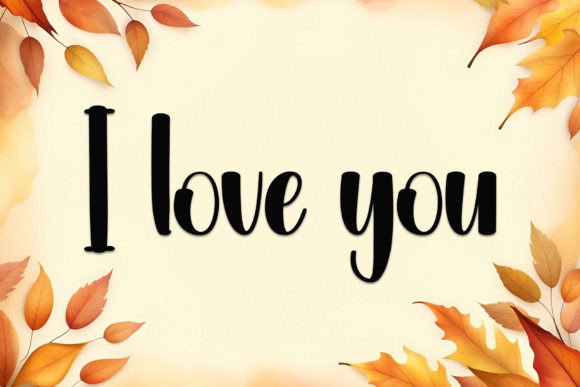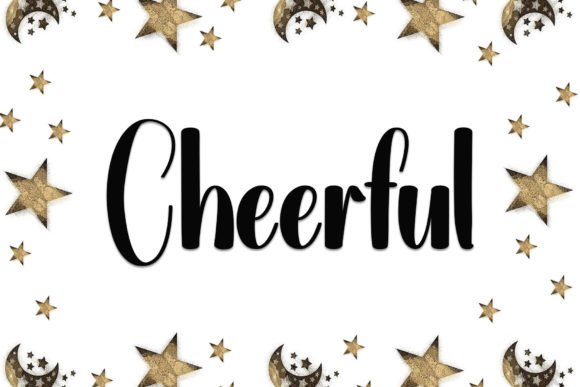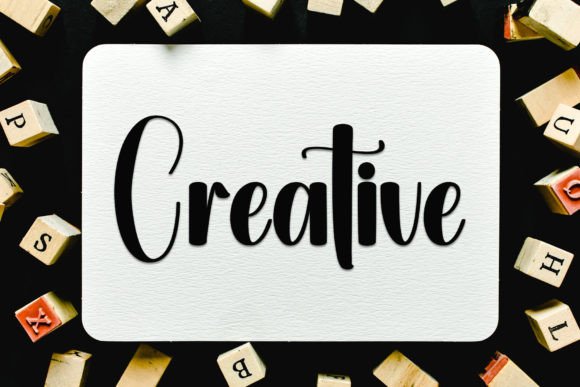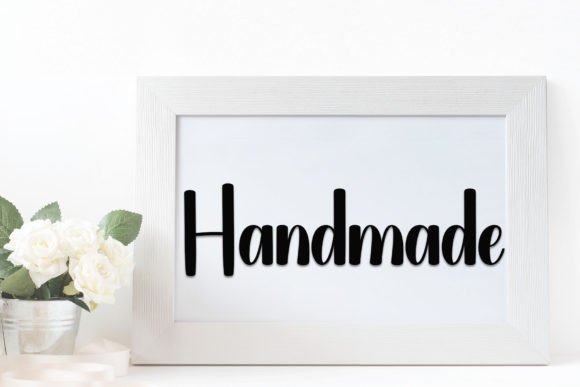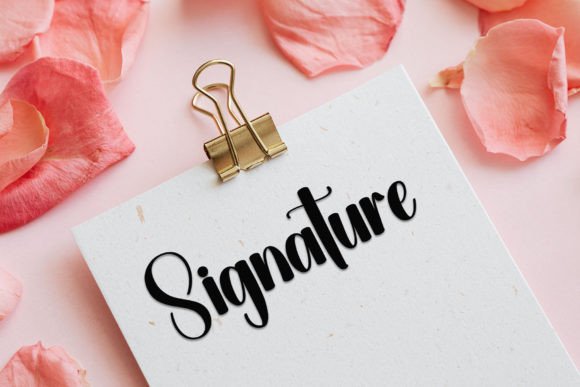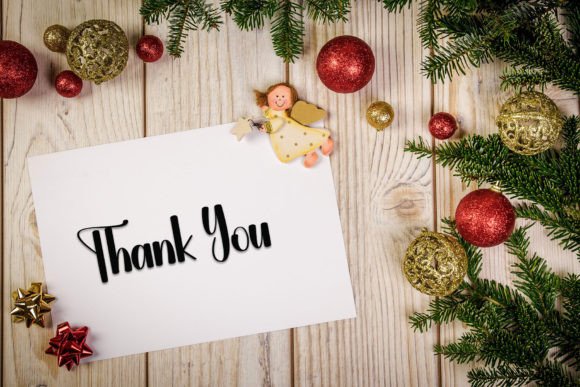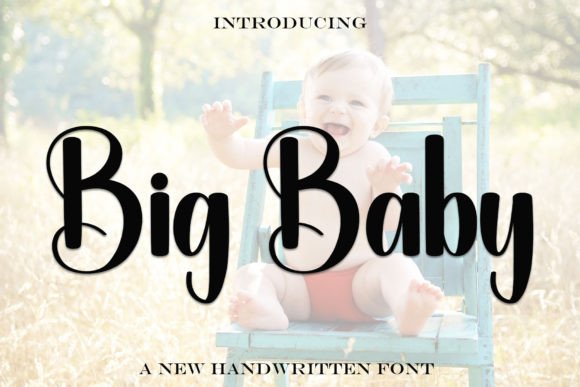
Introducing Big Baby Font: The Sweet and Cursive Handwritten Font for Your Design Needs
Are you looking for a font that can add a touch of elegance and romance to your designs? Look no further than Big Baby Font, a sweet and cursive handwritten font that is perfect for a variety of design projects. In this article, we’ll take a closer look at Big Baby Font and explore its features, uses, and benefits.
What is Big Baby Font?
Big Baby Font is a beautiful, handwritten font that is designed to add a touch of joy and romance to your designs. Its cursive and flowing lines make it perfect for creating elegant and sophisticated designs that are sure to impress. Whether you’re working on a branding project, a wedding invitation, or a fashion lookbook, Big Baby Font is the perfect choice.
Features of Big Baby Font
So, what makes Big Baby Font so special? Here are just a few of its key features:
• Sweet and Cursive: Big Baby Font has a sweet and cursive design that is perfect for creating elegant and sophisticated designs.
• Handwritten: This font has a handwritten feel that gives it a personal and unique touch.
• Versatile: Big Baby Font can be used on a variety of design projects, from branding and logos to wedding invitations and greeting cards.
• Elegant and Casual: This font is perfect for designs that need to look fancy and elegant but still casual.
Uses of Big Baby Font
Big Baby Font is a versatile font that can be used on a wide range of design projects. Here are just a few ideas to get you started:
• Branding: Use Big Baby Font to create a unique and memorable brand identity.
• Logos: This font is perfect for creating elegant and sophisticated logos that will help your business stand out.
• Wedding Things: Big Baby Font is a popular choice for wedding invitations, wedding cards, and other wedding-related designs.
• Greeting Cards: Use this font to create beautiful and heartfelt greeting cards for special occasions.
• Fashion: Big Baby Font is perfect for fashion designs, including lookbooks, catalogs, and advertisements.
• Marketing Promotion: Use this font to create eye-catching marketing materials, such as brochures, flyers, and posters.
Benefits of Using Big Baby Font
So, why should you choose Big Baby Font for your design projects? Here are just a few benefits:
• Unique and Memorable: Big Baby Font is a unique and memorable font that will help your designs stand out.
• Elegant and Sophisticated: This font adds an elegant and sophisticated touch to your designs, making them perfect for high-end brands and luxury products.
• Easy to Read: Big Baby Font is easy to read, even in small sizes, making it perfect for body text and captions.
• Customizable: This font can be customized to fit your design needs, including changing the color, size, and style.
In conclusion, Big Baby Font is a beautiful and versatile font that is perfect for a wide range of design projects. Its sweet and cursive design, handwritten feel, and elegant and sophisticated style make it a popular choice among designers and crafters. Whether you’re working on a branding project, a wedding invitation, or a fashion lookbook, Big Baby Font is the perfect choice. So why wait? Download Big Baby Font today and start creating stunning designs that will leave a lasting impression!